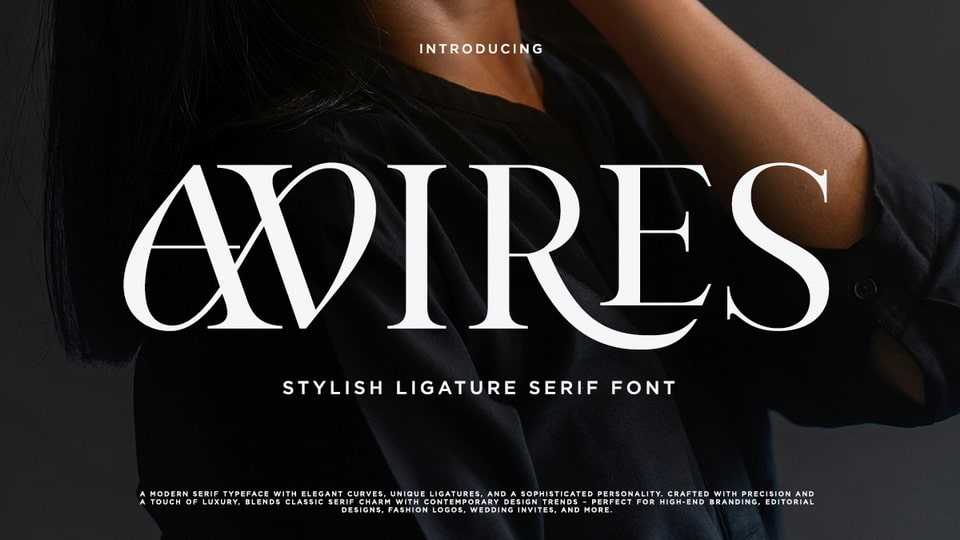
Download Avires font, a stylish ligature serif typeface with sophisticated and high-fashion serif typeface designed to command attention and elevate any creative project.